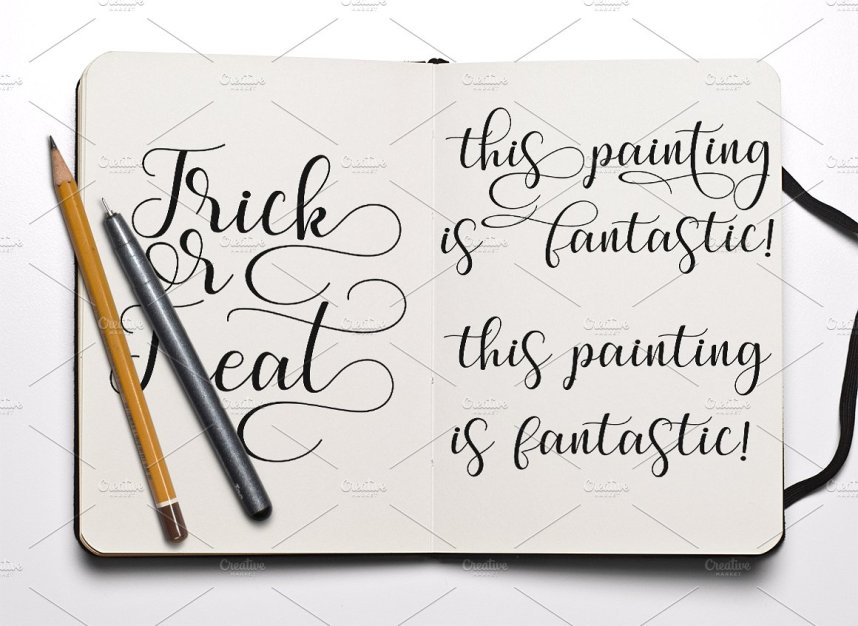
Marchy Script Font
Marchy Script a new fresh & modern script with a handmade calligraphy style, decorative characters and a dancing baseline! So beautiful on invitation like greeting cards, branding materials, business cards, quotes, posters, and more!!
Marchy Script come with 550+ glyphs. The alternative characters were divided into several Open Type features such as Swash, Stylistic Sets, Stylistic Alternates, Contextual Alternates, and Ligature. The Open Type features can be accessed by using Open Type savvy programs such as Adobe Illustrator, Adobe InDesign, Adobe Photoshop Corel Draw X version, And Microsoft Word. And this Font has given PUA unicode (specially coded fonts). so that all the alternate characters can easily be accessed in full by a craftsman or designer